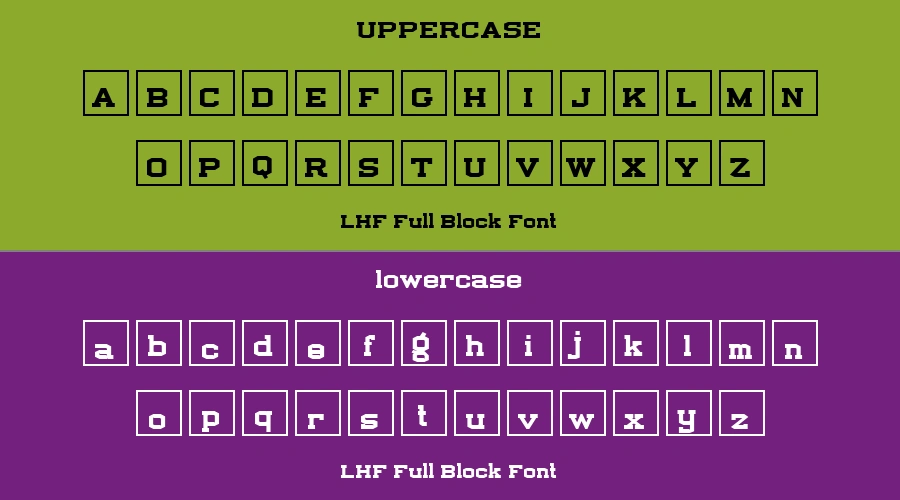
About LHF Full Block Font
LHF Full Block Font embodies typographic excellence through its masterful combination of clean corners and expressiveness. Created for exhibition design, this typeface delivers exceptional legibility and technical excellence across all applications. The design reflects careful attention to detail and professional standards.
Advanced capabilities include distinctive sharp terminals and versatile initial forms, giving designers creative control. When used in compliance seals, LHF Full Block Font exhibits remarkable emotional response. The harmonious balance between stroke contrast and technical tradition sets this typeface apart.